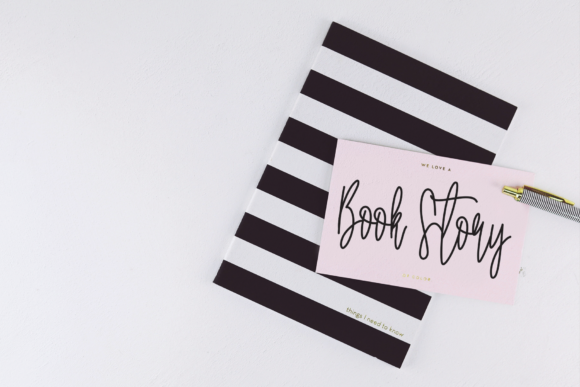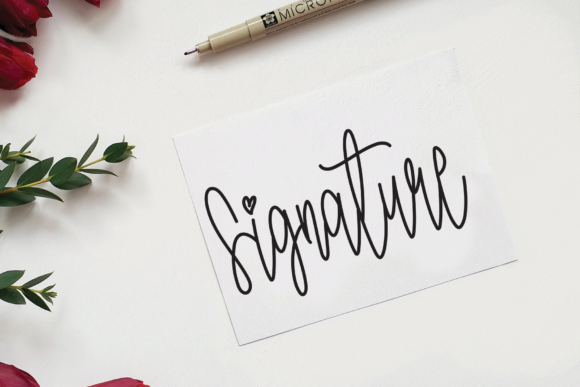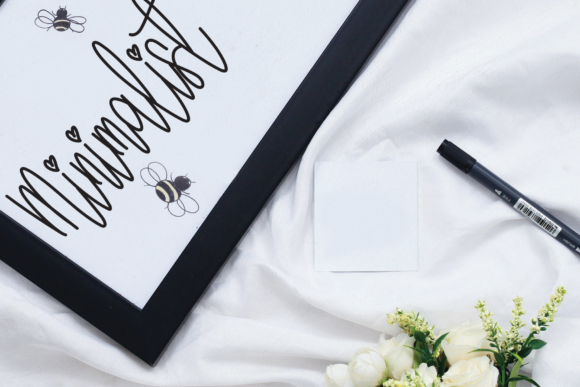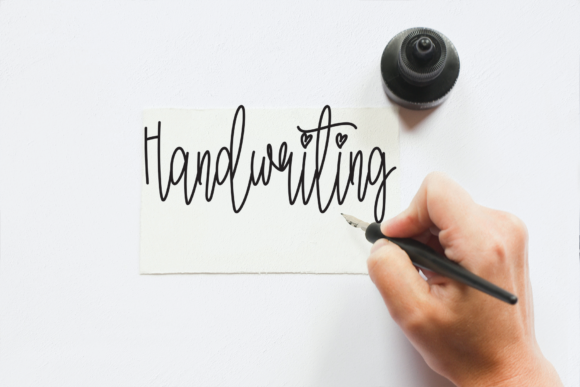
Baby Bee Font: The Sweetest Addition to Your Design Collection
Are you a designer or crafter looking for a font that exudes elegance and sophistication? Look no further than the Baby Bee Font! This stunning script font is sure to capture your heart with its thin lettering and graceful curves. In this article, we’ll dive into the world of Baby Bee Font and explore its features, uses, and benefits.
What is Baby Bee Font?
Baby Bee Font is a beautiful script font characterized by its thin lettering and flowing curves. Its ravishing style is perfect for creating gorgeous wedding invitations, stunning stationary art, eye-catching social media posts, and much more. Whether you’re a professional designer or a crafty DIY enthusiast, Baby Bee Font is sure to become your new go-to font.
Key Features of Baby Bee Font
- Thin Lettering: Baby Bee Font features delicate and thin lettering that adds a touch of elegance to any design.
- Graceful Curves: The font’s flowing curves create a sense of movement and fluidity, making it perfect for designs that require a touch of sophistication.
- Script Style: Baby Bee Font is a script font that adds a personal and whimsical touch to any design.
- Versatile: This font can be used for a wide range of design projects, from wedding invitations to social media posts.
Uses of Baby Bee Font
Baby Bee Font is an incredibly versatile font that can be used for various design projects. Here are some ideas to get you started:
- Wedding Invitations: Create stunning wedding invitations that set the tone for a beautiful and elegant wedding.
- Stationary Art: Design gorgeous stationary art, including greeting cards, thank-you cards, and more.
- Social Media Posts: Add a touch of elegance to your social media posts and make them stand out from the crowd.
- Branding: Use Baby Bee Font to create a unique and memorable brand identity for your business.
- Crafting: This font is perfect for crafters who love to create handmade cards, gift tags, and other paper crafts.
Benefits of Using Baby Bee Font
So, why should you choose Baby Bee Font for your design projects? Here are some benefits to consider:
- Elegance: Baby Bee Font adds a touch of elegance and sophistication to any design.
- Uniqueness: This font is unique and distinctive, making it perfect for designers who want to stand out from the crowd.
- Versatility: Baby Bee Font can be used for a wide range of design projects, making it a great addition to your font collection.
Tips for Using Baby Bee Font
Here are some tips to help you get the most out of Baby Bee Font:
- Pair with Bold Fonts: Pair Baby Bee Font with bold fonts to create a striking contrast.
- Use for Headings: Use Baby Bee Font for headings and titles to add a touch of elegance.
- Use for Digital and Print: Use Baby Bee Font for both digital and print designs to create a cohesive look.
| Font Name | Baby Bee Font |
| Author | Inspekelement.ST |
In conclusion, Baby Bee Font is a stunning script font that is sure to capture your heart. Its thin lettering and graceful curves make it perfect for creating gorgeous wedding invitations, stunning stationary art, eye-catching social media posts, and much more. With its versatility, elegance, and uniqueness, Baby Bee Font is a great addition to any design collection. So, fall for its ravishing style and use it to take your designs to the next level!